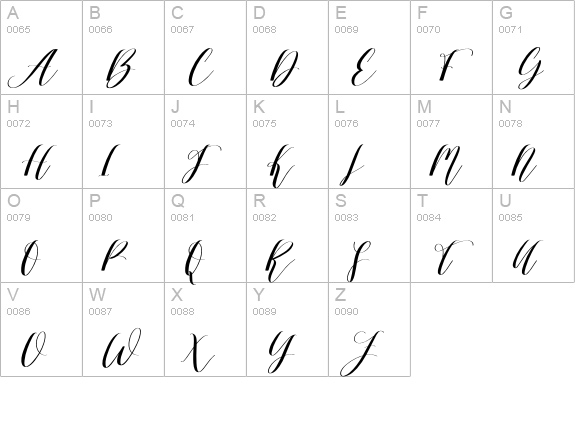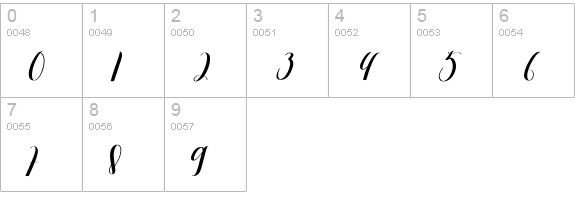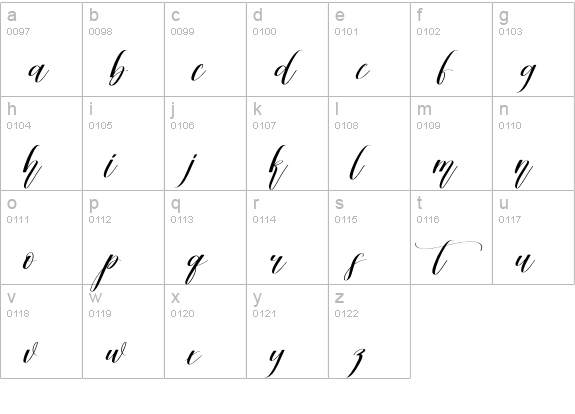
Margaretta Font Details
Margaretta is a free for personal use font in the Script > Handwritten category, designed by scratchones. It has been downloaded 0 times and is available for Windows, Mac and Linux.
Margaretta font is a stunning and elegant typeface that exudes sophistication and grace. With its delicate curves and stylish appeal, this font is perfect for adding a touch of class to any design project. Whether you're creating wedding invitations, branding materials, or social media graphics, Margaretta font will elevate your work to new heights.